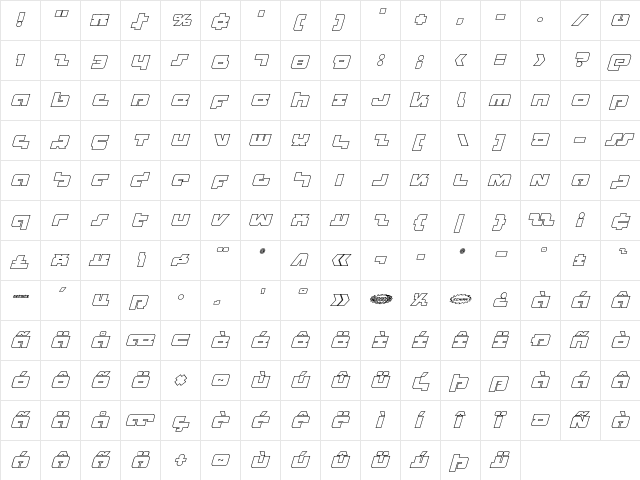
Boomstick Outline Italic Outline Italic
Design Context for Boomstick Outline Italic Typeface
Boomstick Outline Italic is built around its visual character rather than neutral utility — its distinctive forms are designed to make an impression at display sizes. The dynamic lean of this cut emphasises speed and emphasis in any layout.
Font Pairing: Pair with a clean neutral sans-serif for body copy to let Boomstick Outline Italic's character lead without overwhelming the composition.
Pro Tip: Use Boomstick Outline Italic exclusively at display sizes — it was designed to be seen, not read at length. Let a neutral companion handle body copy.